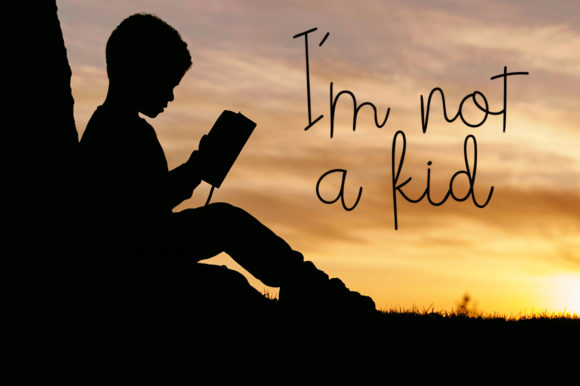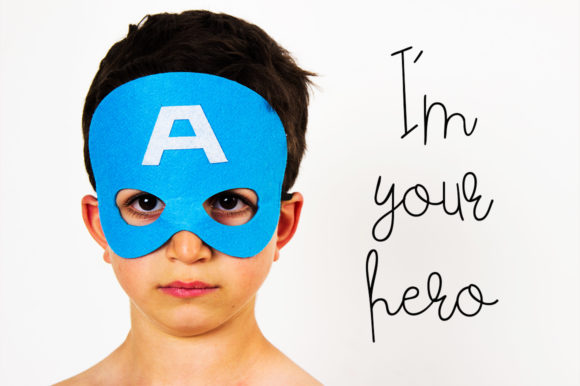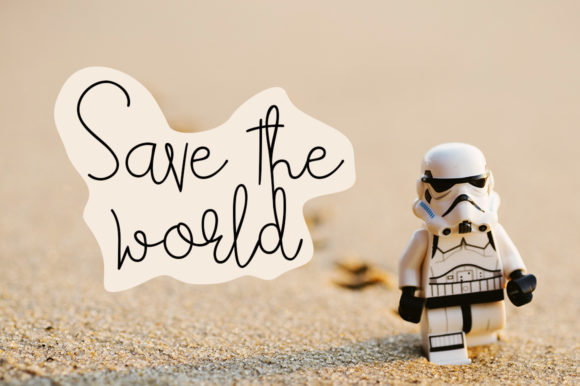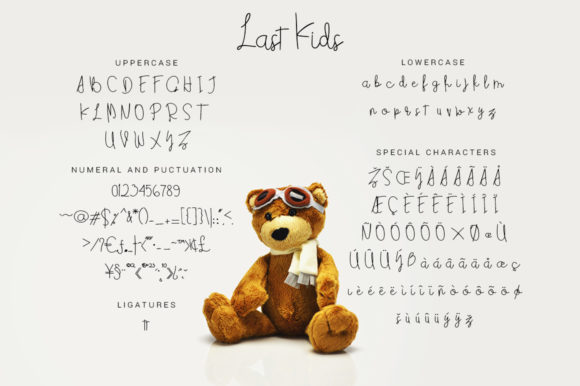
HomeScript FontsLast Kids Font Script Fonts Last Kids Font FacebookXPinterestWhatsApp Last Kids Font Poster 2 Last Kids Font Poster 3 Last Kids Font Poster 4 Last Kids Font Poster 5 About Last Kids Font Last Kids is a fun handwritten font that is reminiscent of kid’s drawings. Get inspired by its unique style! DOWNLOAD ON CREATIVE FABRICAThis font is sold and delivered by Creative Fabrica. Font Canyon may earn a commission if you buy through this link. People also explored Tumbler Font Forgotten Playbill Font Shadow Zombie Font Glory Bold Font Balin Quiny Font Best Girl Font Kasthing Letter Font Modena Brush Font YWFT Nim 302 0 TagsLast Kids Font Previous articleBright Sunkiss FontNext articleGladis Font LEAVE A REPLY Cancel reply Comment: Please enter your comment! Name:* Please enter your name here Email:* You have entered an incorrect email address! Please enter your email address here Website: Save my name, email, and website in this browser for the next time I comment. Personal Use Free Proudly Personal Use Free Read more about this font Monogram Veg Personal Use Free Read more about this font Monogram Calligraphy Personal Use Free Read more about this font Arabella Script Personal Use Free Read more about this font BLOG Best Fonts for T-Shirt Design – Top 2025 Picks In 2025, t-shirt design has become more than just fashion—it's a form of self-expression. Whether you're... Where to Buy American Fonts Online in 2024 Using Fonts in Digital Marketing: Tips to Strengthen Your Brand Identity Elegant Wedding Invitation Fonts – Handwritten & Script Fonts